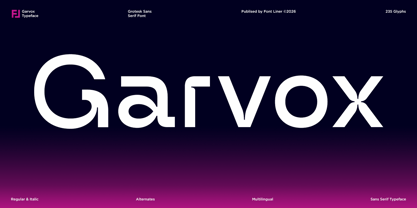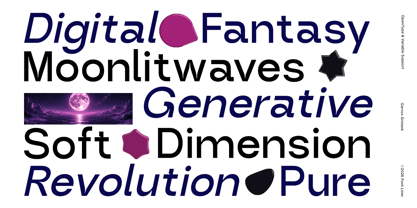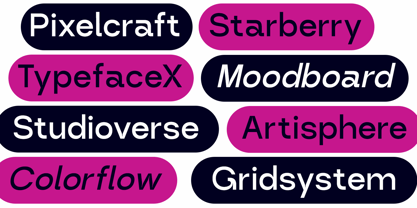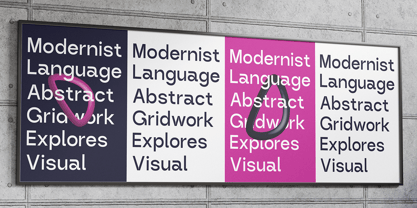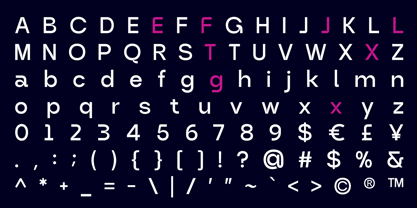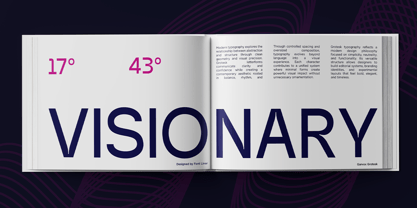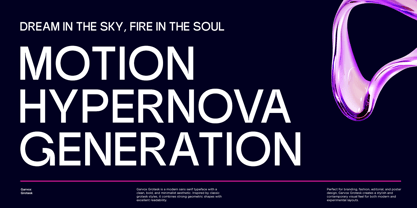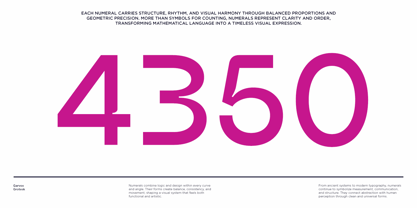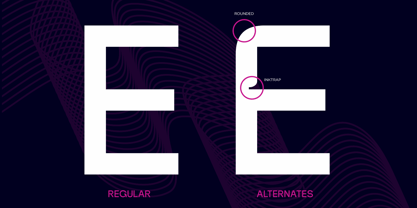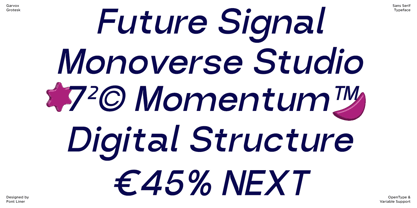
Garvox
Garvox is a modern grotesk sans serif font designed to bring clarity, sophistication, and contemporary character to every project. Combining clean construction with distinctive futuristic details, Garvox delivers a confident visual presence that feels both professional and innovative. Its balanced proportions and unique letterforms make it an excellent choice for designers seeking a fresh alternative to traditional sans serif typography.
Built for versatility, Garvox excels in branding, logo design, editorial layouts, technology startups, corporate identities, luxury packaging, fashion campaigns, websites, and digital media. The modern grotesk structure ensures strong readability while maintaining a stylish and memorable appearance that elevates any visual communication.
Whether you're crafting a cutting-edge brand identity, creating premium marketing materials, or designing impactful editorial content, Garvox provides the flexibility and visual strength needed to make your work stand out in today's competitive creative landscape.
• Regular and Italic Style
• Stylistic Alternates
• Uppercase and Lowercase
• Number, symbol, and Punctuation
• Multilingual Support